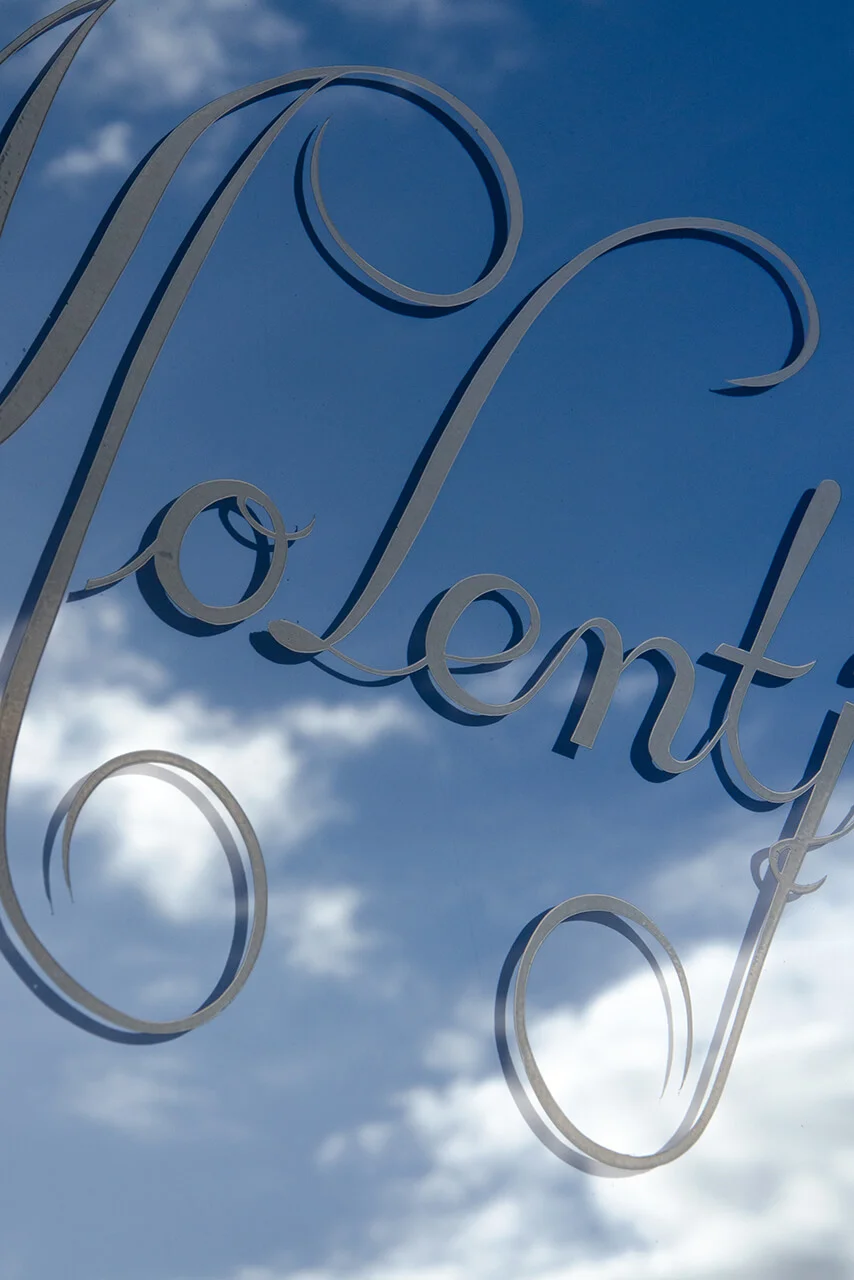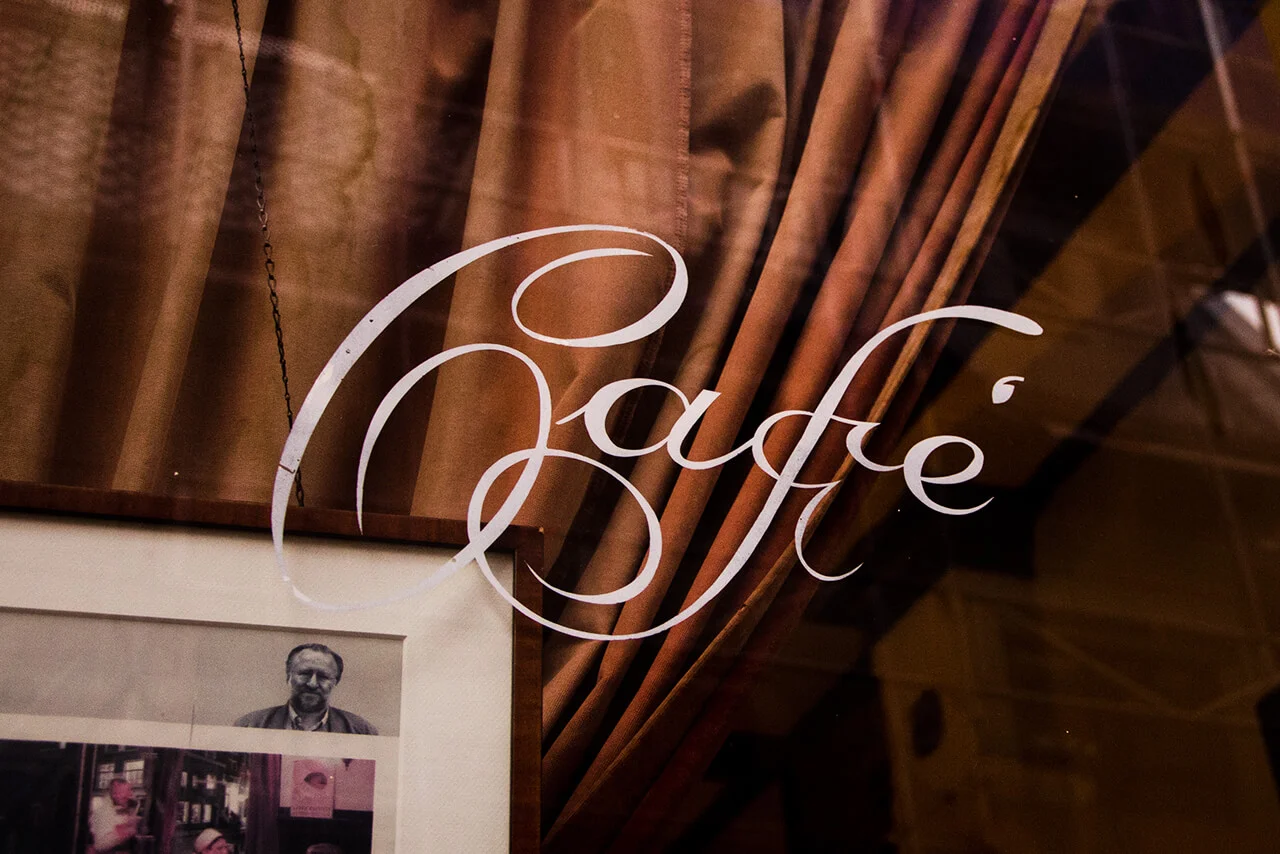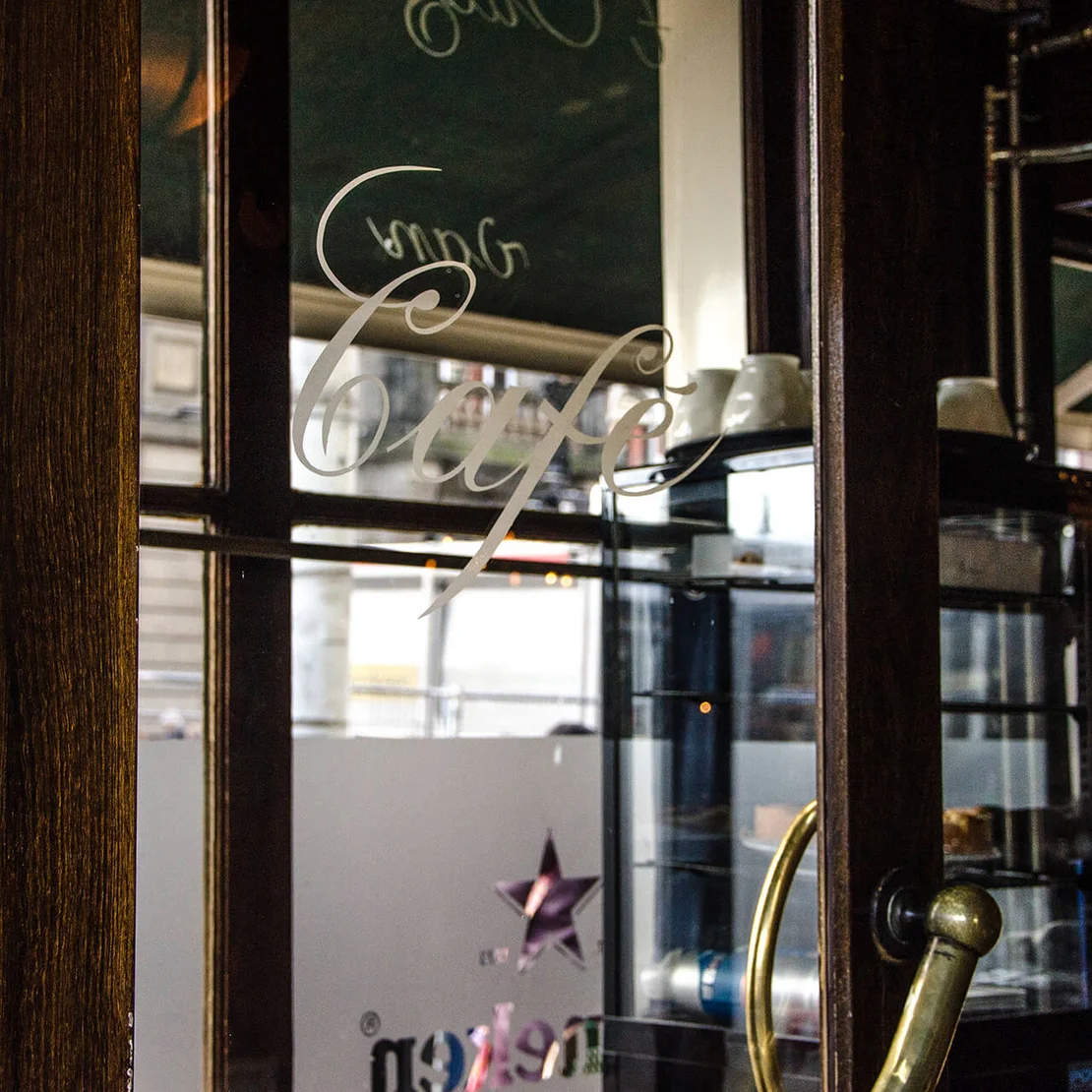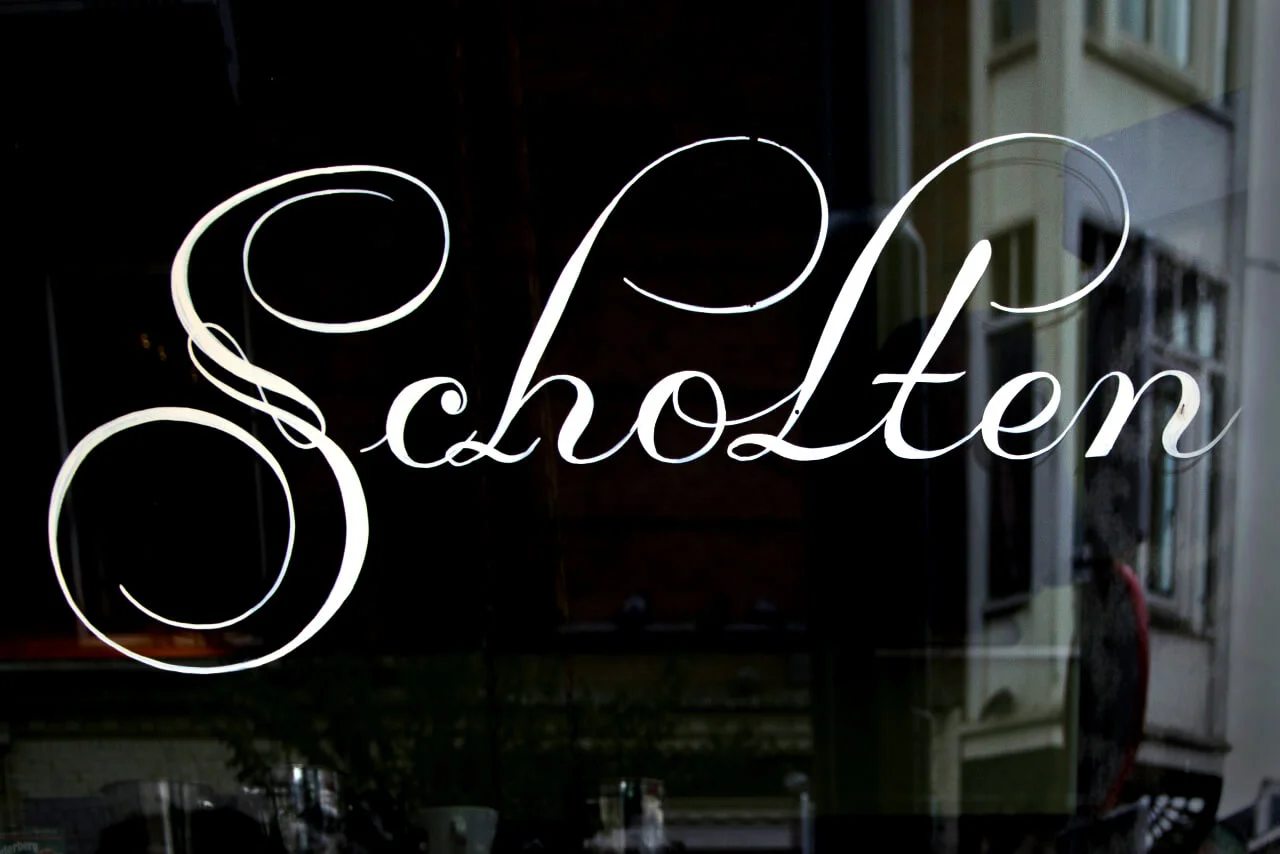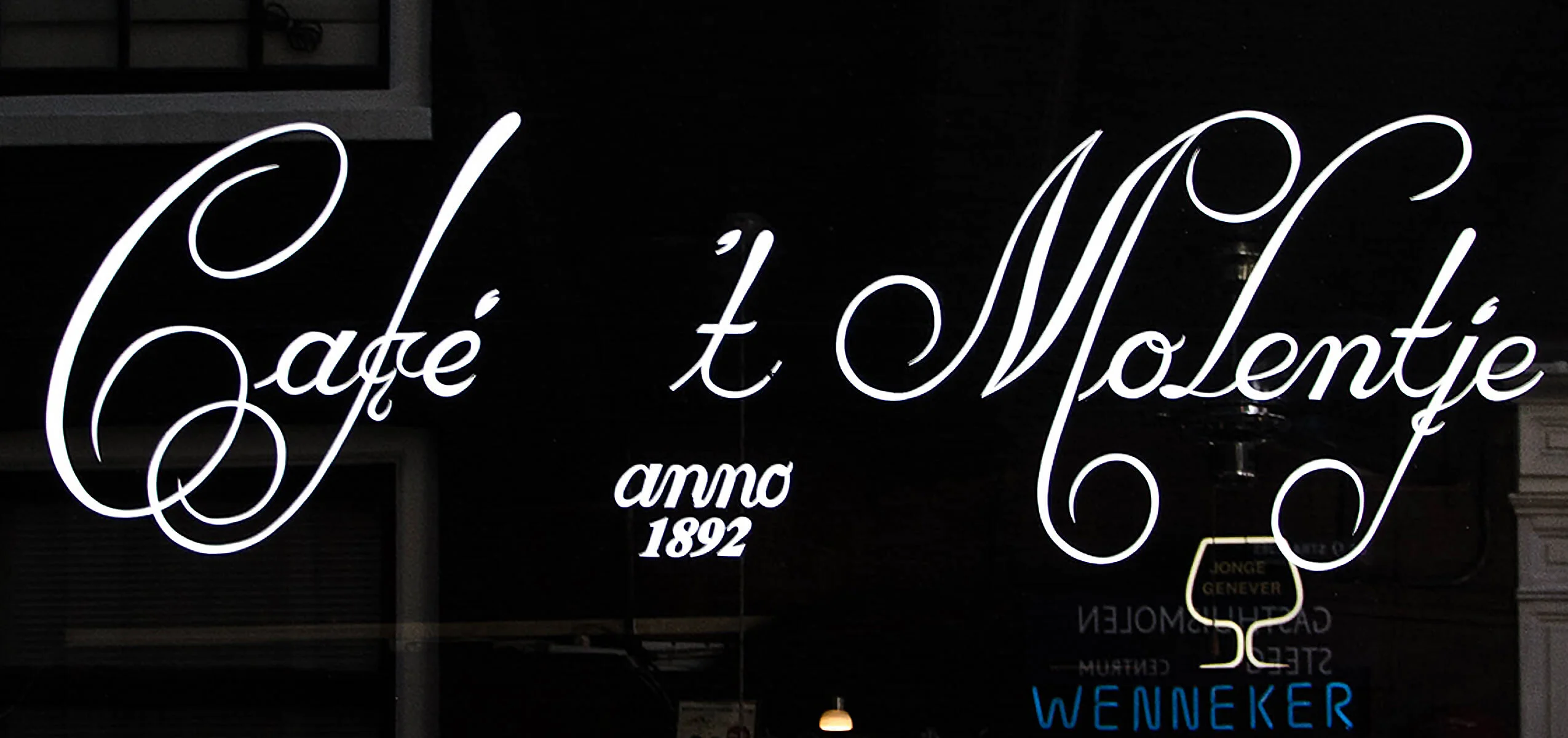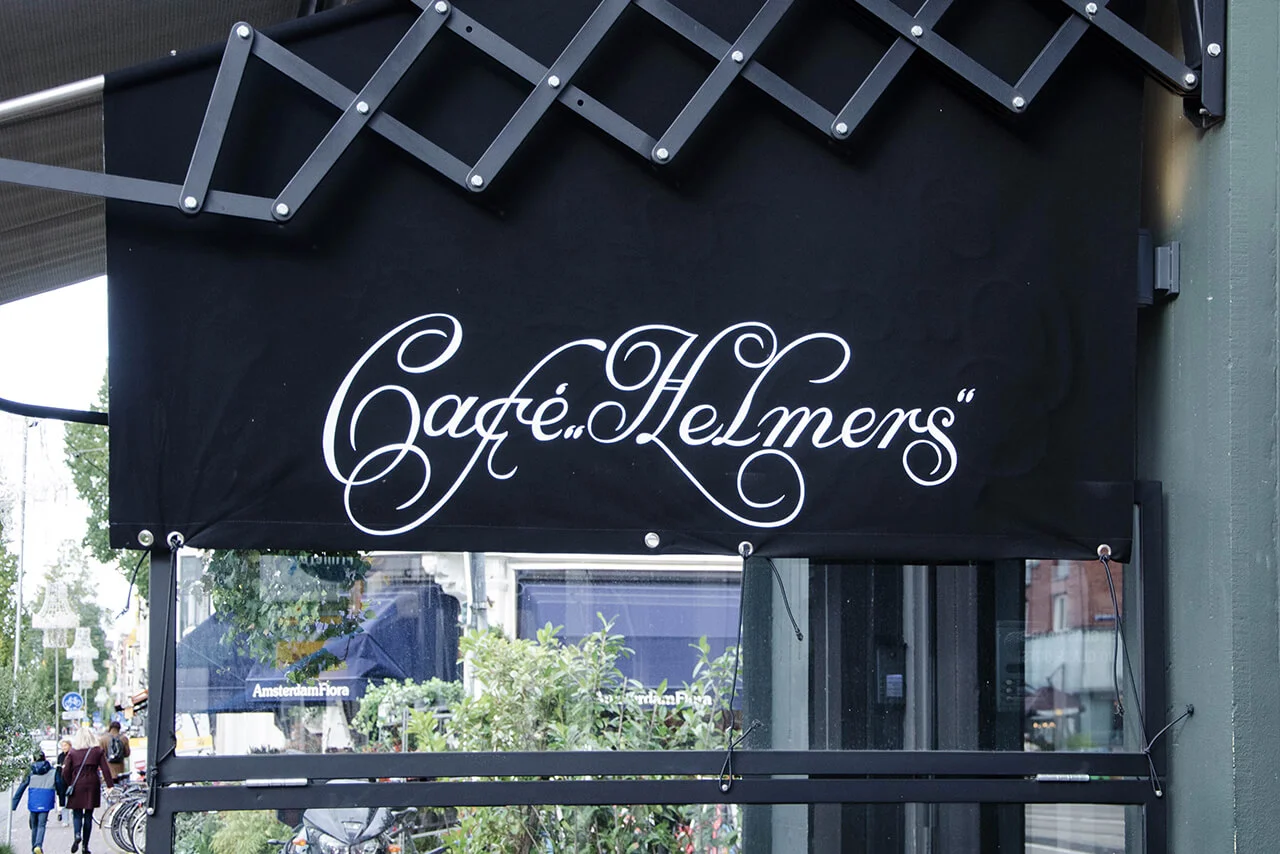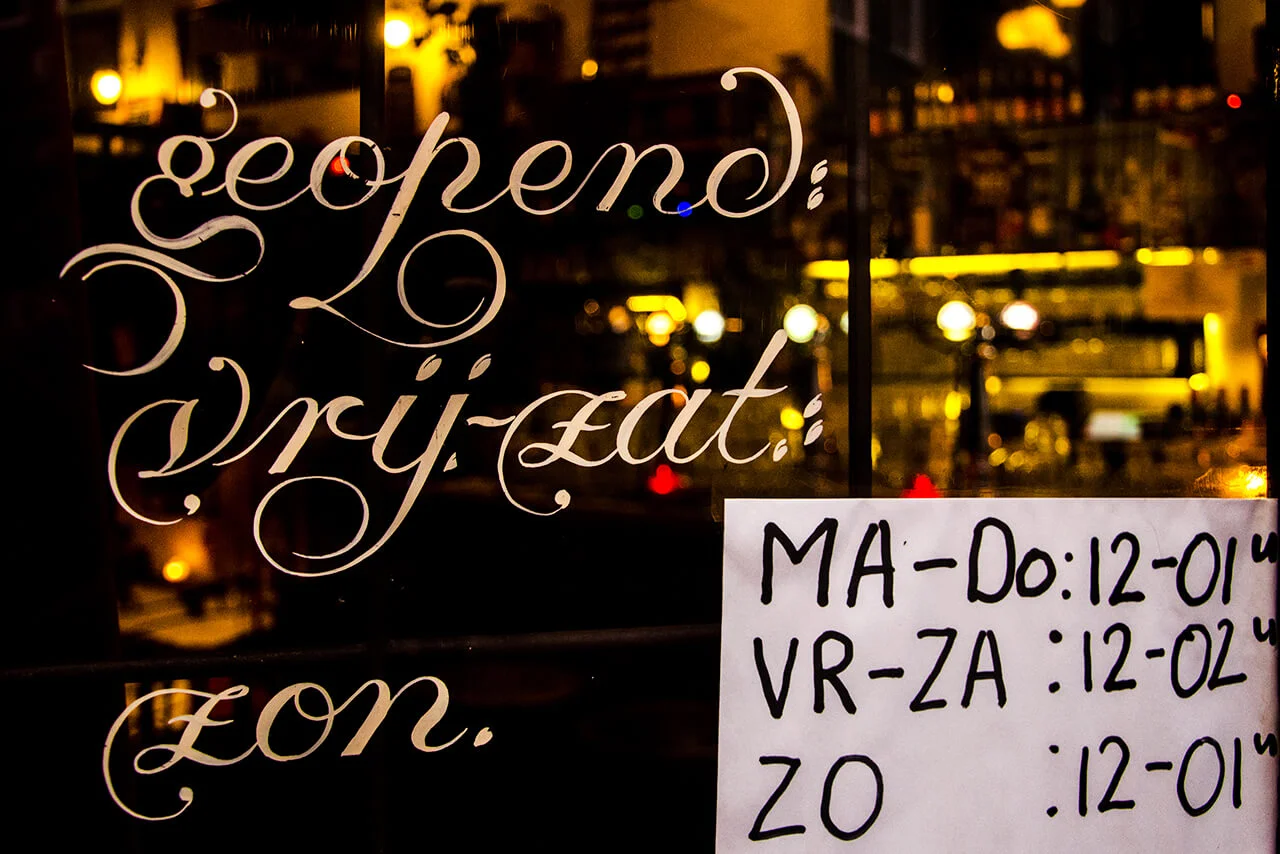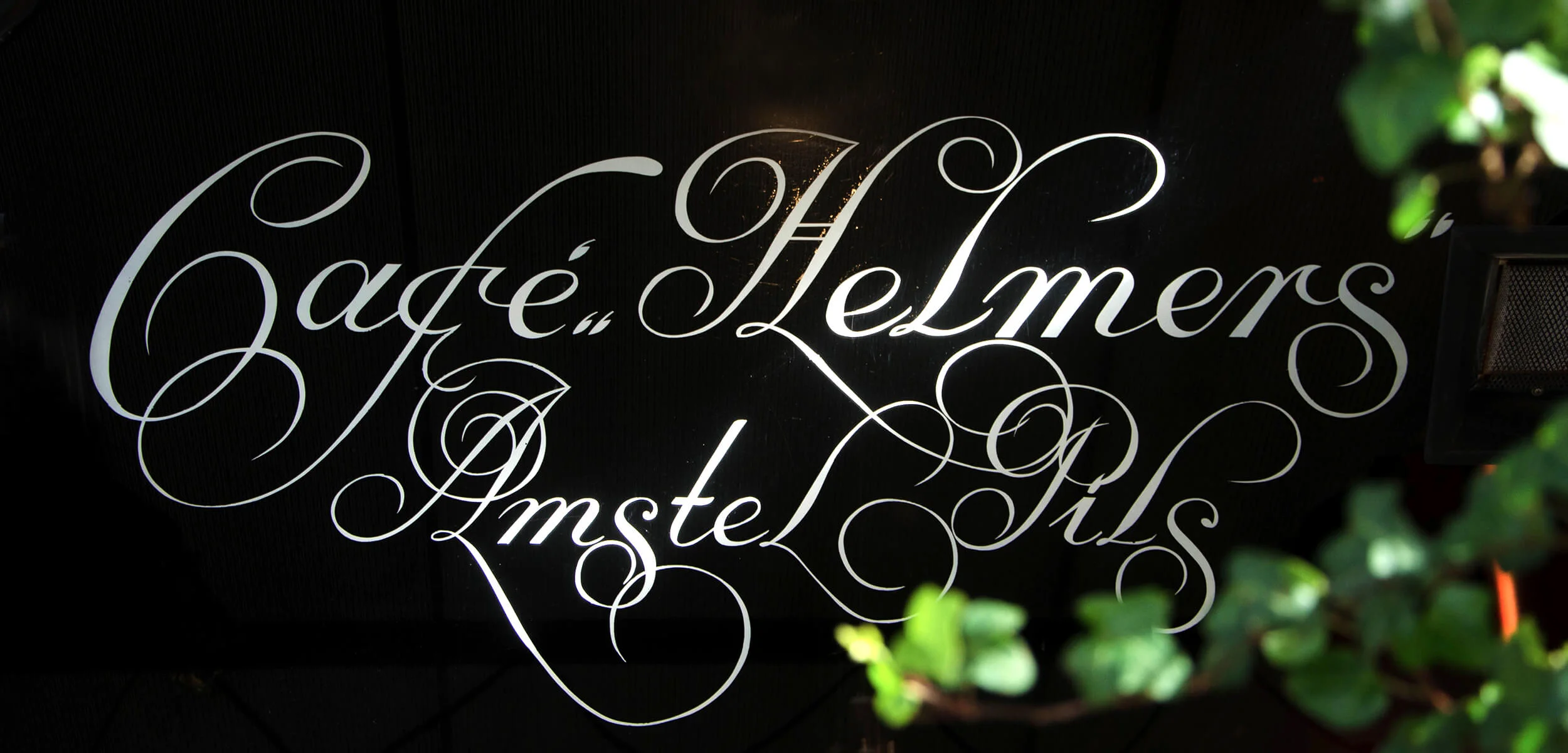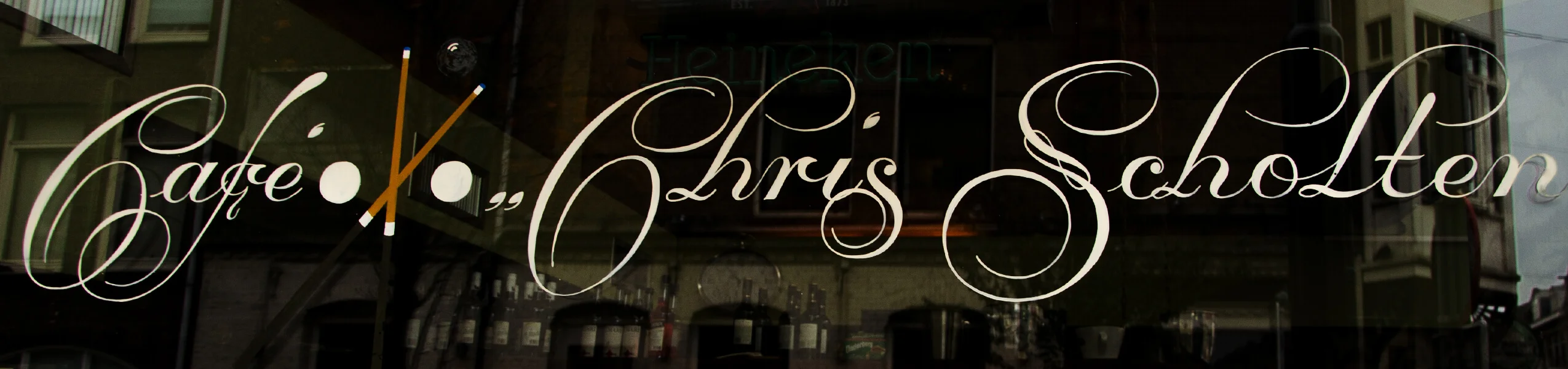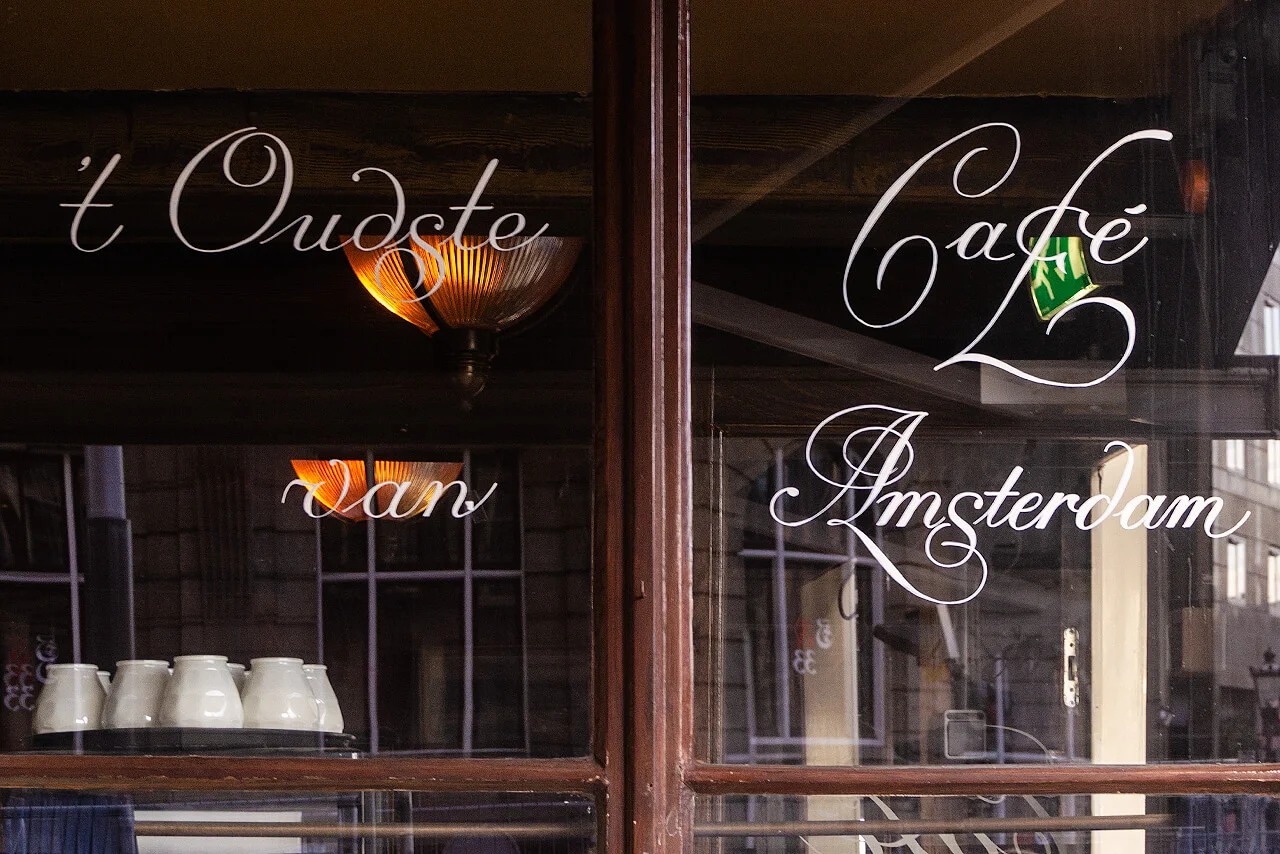
Amsterdam’s Krulletters
Letters and Lager
They belong to Amsterdam much as pubs belong to London: bruin cafés—intimate, traditional establishments frequented by locals and, for the most part, still largely untouched by gentrification and the excesses of tourism. What unites these cafés, beyond their preserved local character, are the often playful letterings at their entrances, known as krulletters.
With only a few hours at my disposal to visit some of these cafés, I was joined by Ramiro Espinoza, type designer and author of De Amsterdamse Krulletters. He guided me to a selection of his favourite letterings, offering rich insights into the history and present-day practice of these so-called curly letters.
Letters and beer—what a remarkable combination.
Café ‘Karpershoek’, Martelaarsgracht 2
Café ‘Hoppe’, Spui 18-20
Café ‘’t Molentje’, Singel 278
The Amsterdam tradition of krulletters can be traced back to the signwriter Wim Visser, who, from the 1940s onwards, produced numerous façades for bruin cafés on behalf of the Amstel Brewery. The style was later continued by Leo Beukeboom, who maintained the practice until he was forced to give up painting in 2003 following a stroke.
In his highly recommended book De Amsterdamse Krulletters, Ramiro Espinoza traces the typographic origins of these letterforms, recounts in detail the work of both signwriters, and—accompanied by the atmospheric photographs of Rob Becker—offers a compelling overview of the approximately fifty surviving original inscriptions.
Since the publication of his book in 2015, Ramiro Espinoza has repeatedly received reports of purported new discoveries. While these often prove not to be genuine krulletters, a number of previously undocumented examples have nevertheless come to light.
Others, however, have been lost for good—through renovation, changes in ownership, or simply accidental damage. In one particularly striking case, a guest, following a dispute, smashed all the windows of a café, thereby destroying the krulletters in the process.
Café ‘Chris Scholten’, Van Woustraat 104
Café ‘Café De Nieuwe Lelie’, Nieuwe Leliestraat 83
The typeface “Krull” by Ramiro Espinoza is based on the Krulletters and was released through his Retype Foundry.